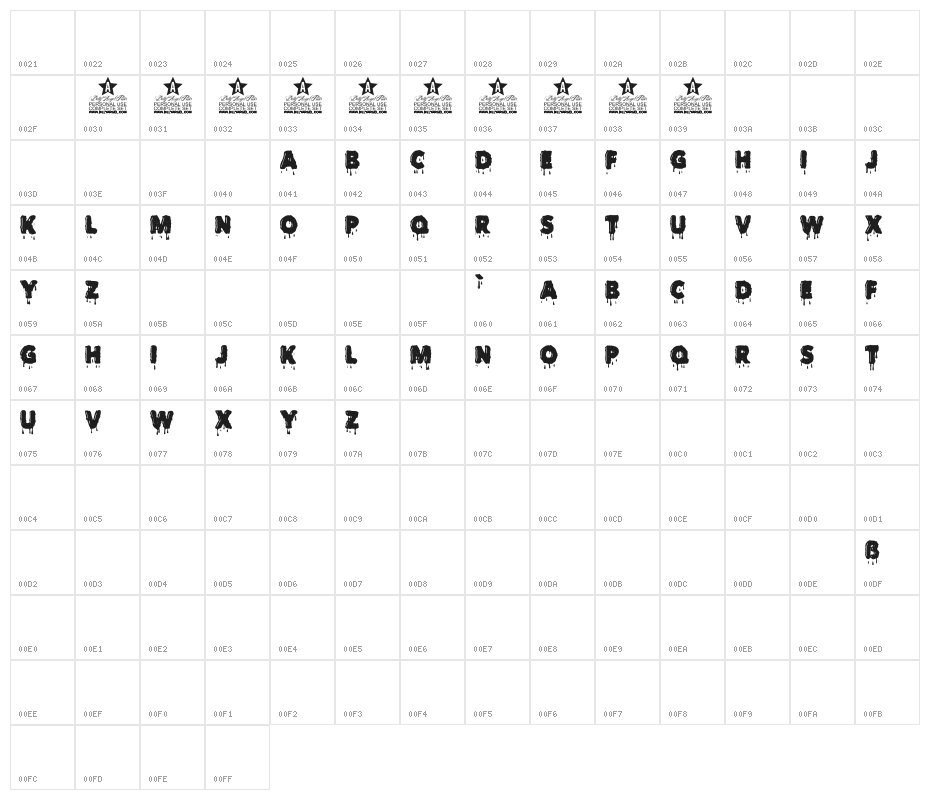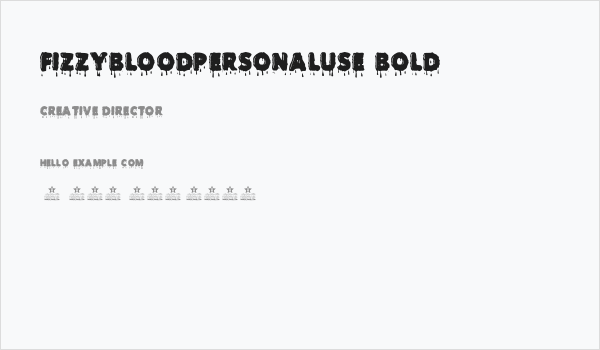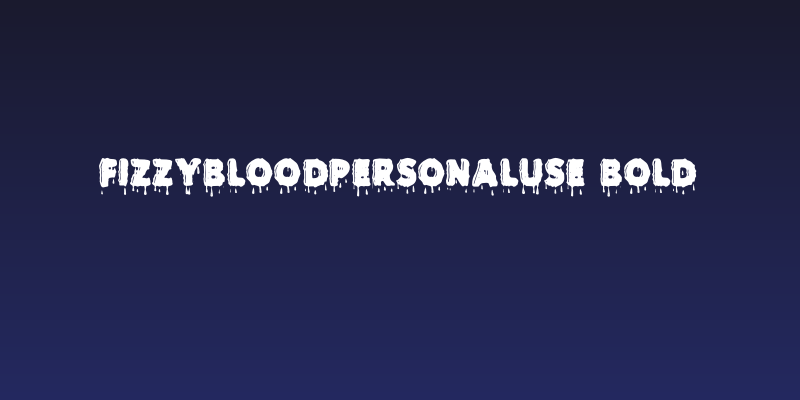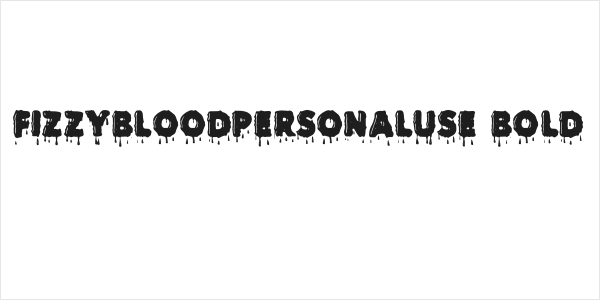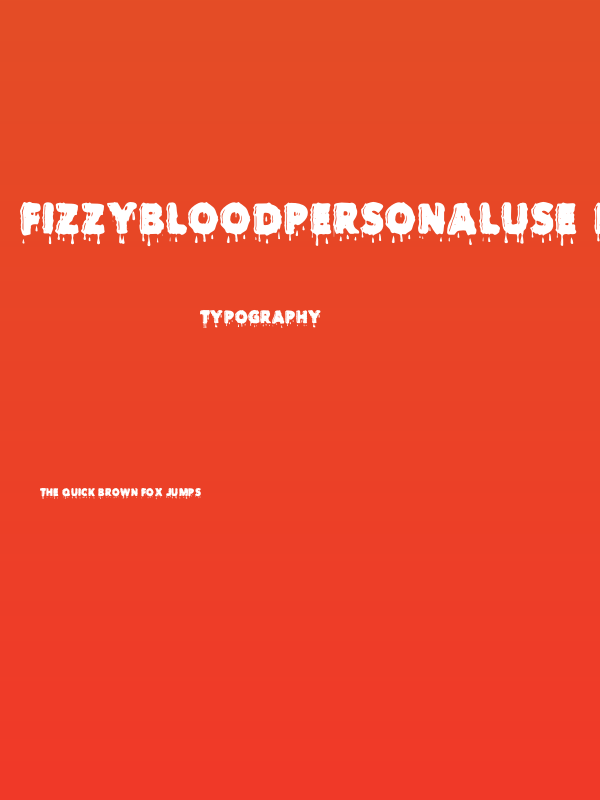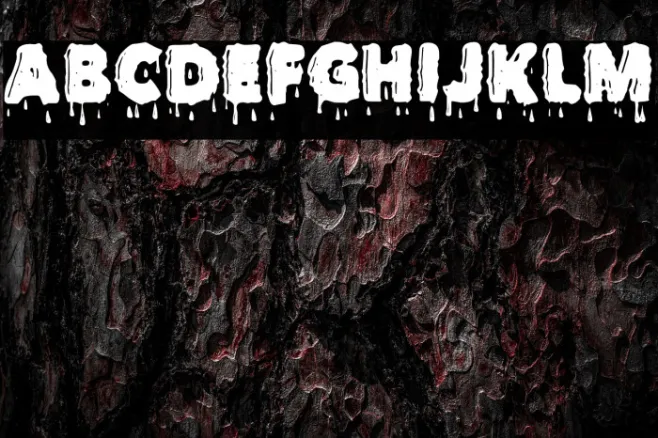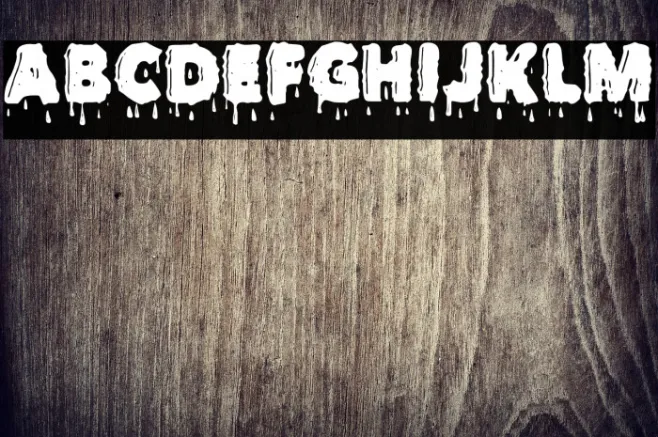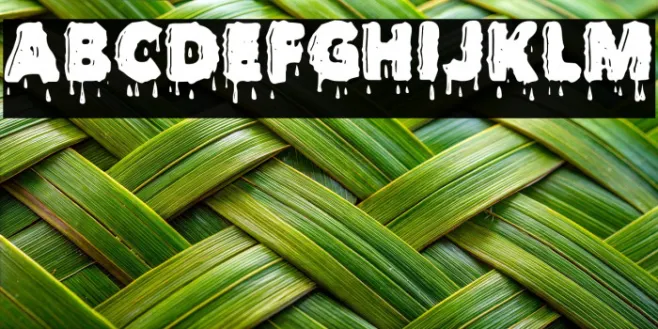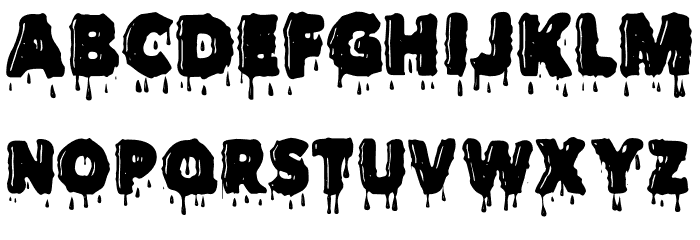
FIZZYBLOODPERSONALUSE-Bold Font
| Vorgeschlagene Projekte | Ideal for Halloween posters, horror movie titles, themed party invitations, and edgy graphic designs. |